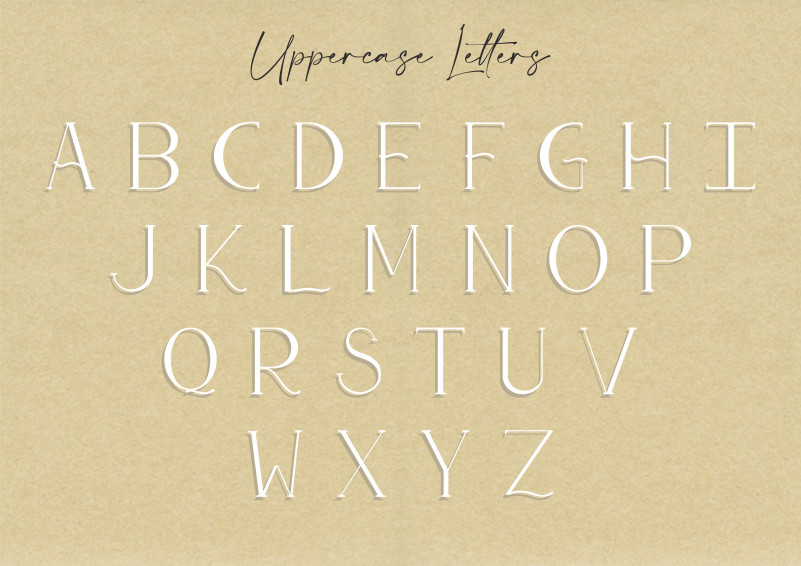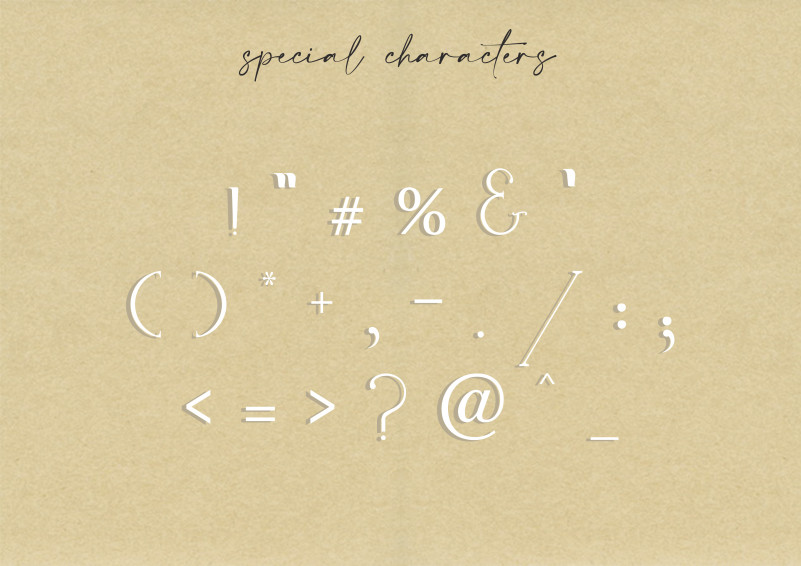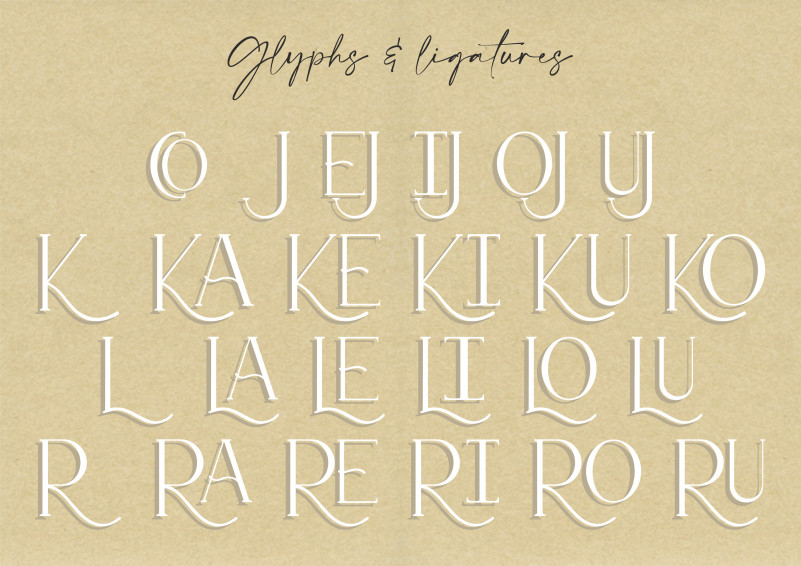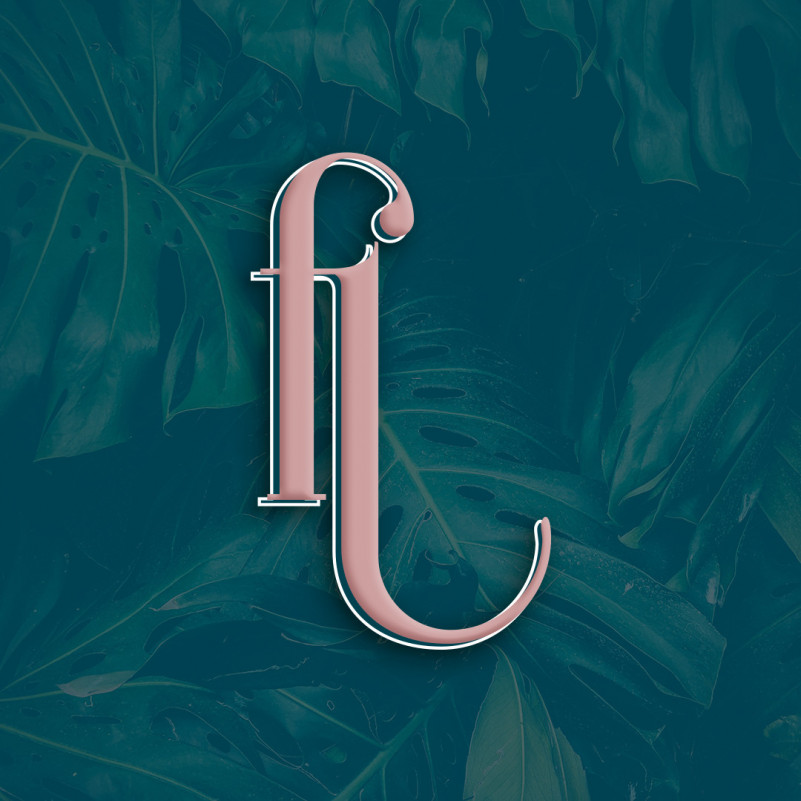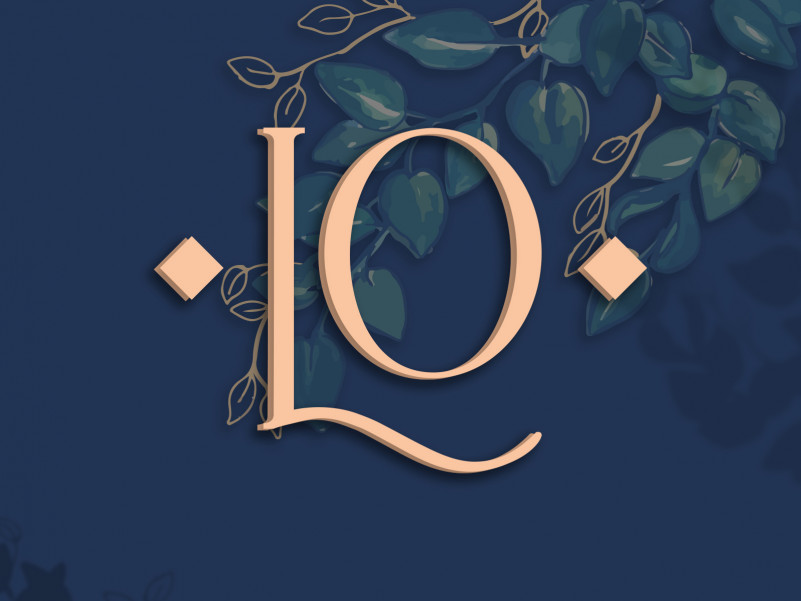
The Lost Cord Font
The Lost Cord Serif Font
This is an elegant modern serif font, inspired by the Art Deco Movement. With exaggerated curves and a set of glyphs and ligatures, this font is ideal for creating logotypes, to be used on packages or for display purposes.